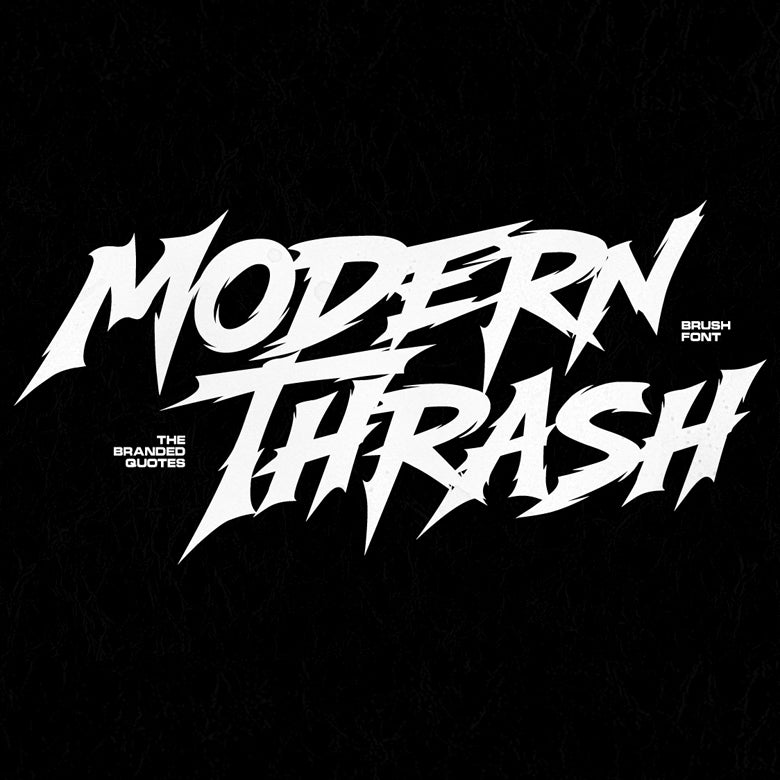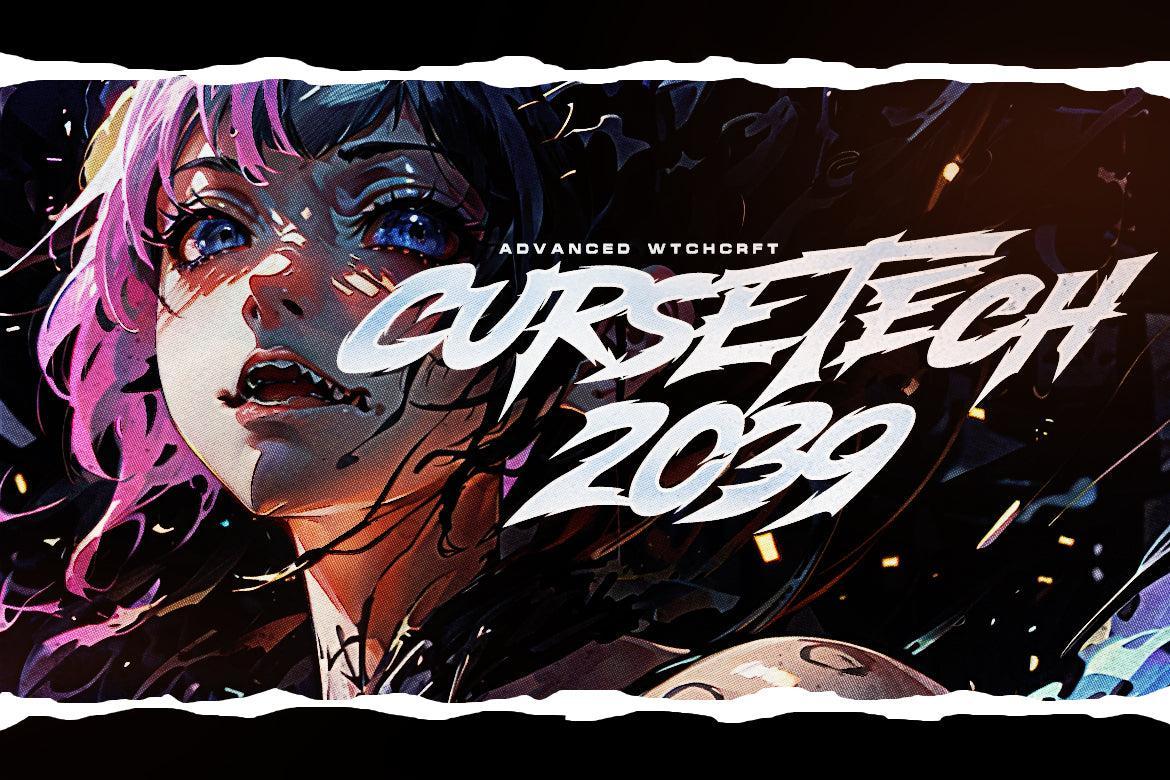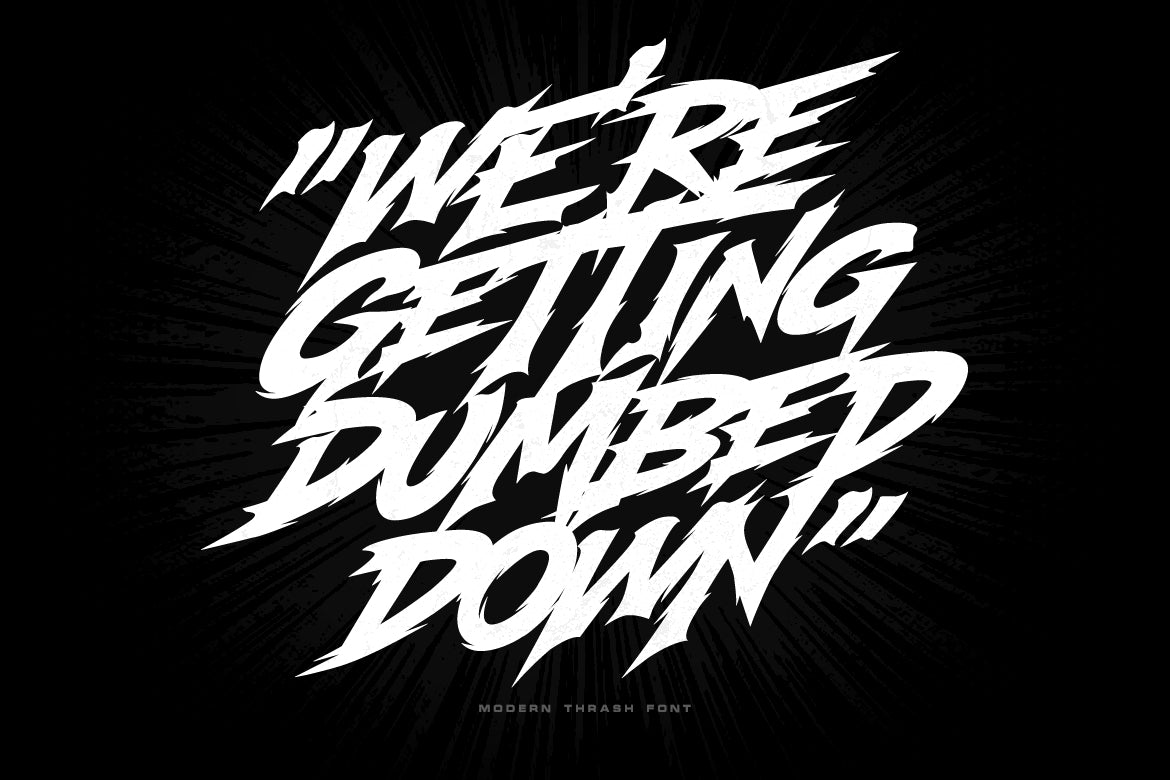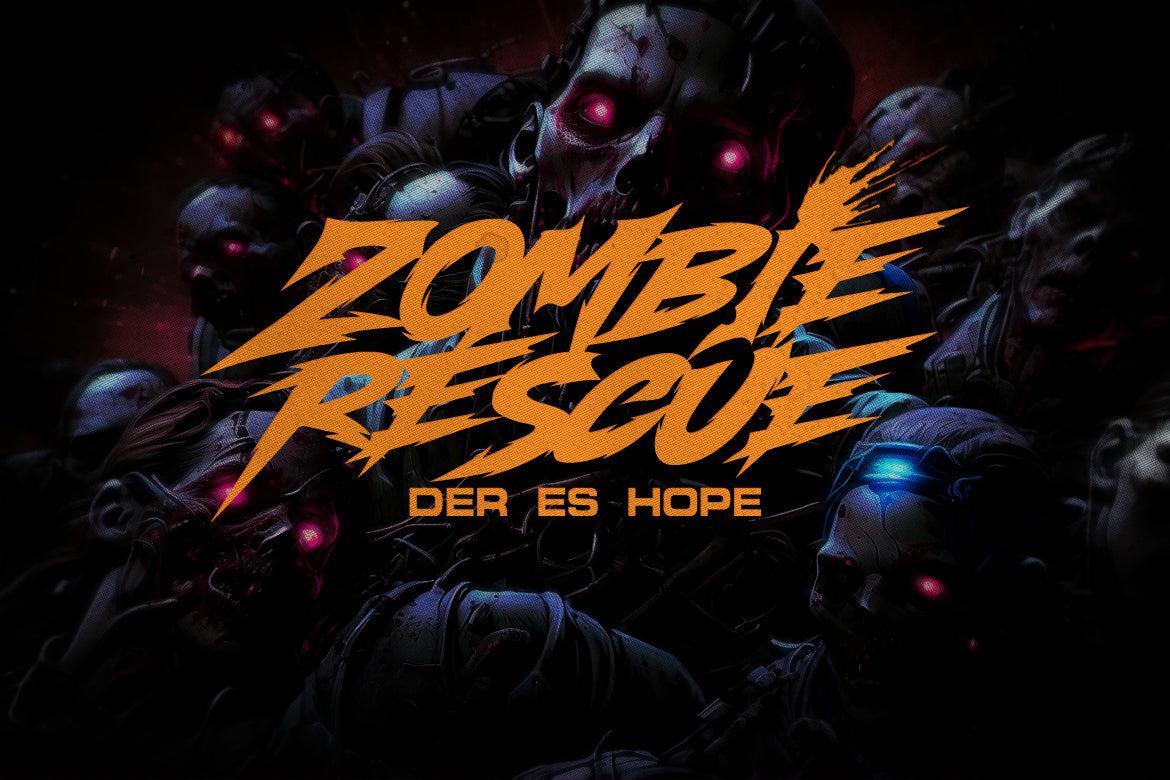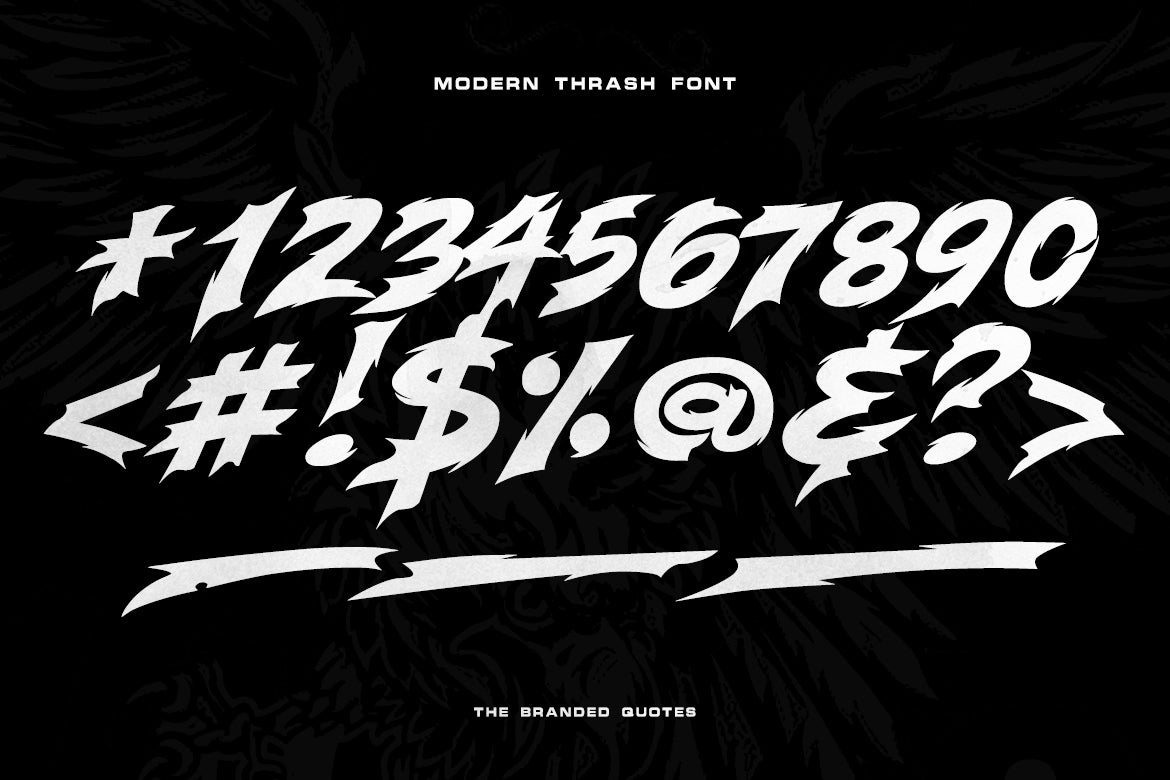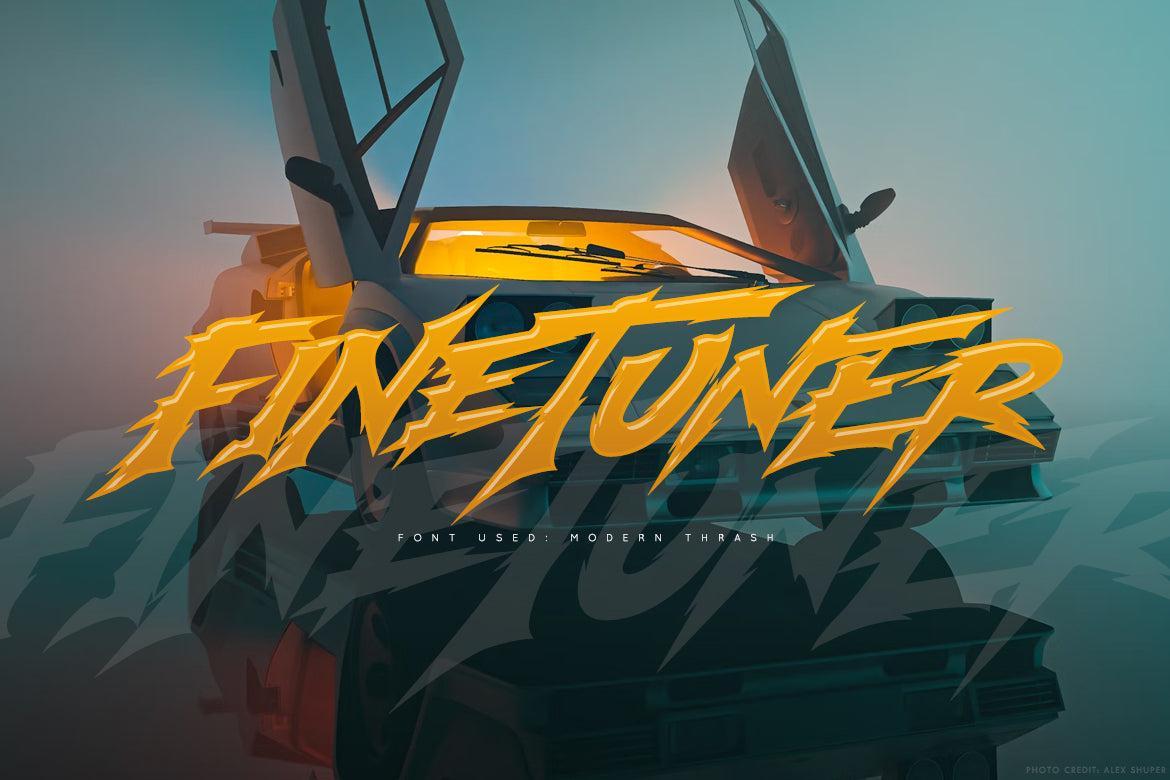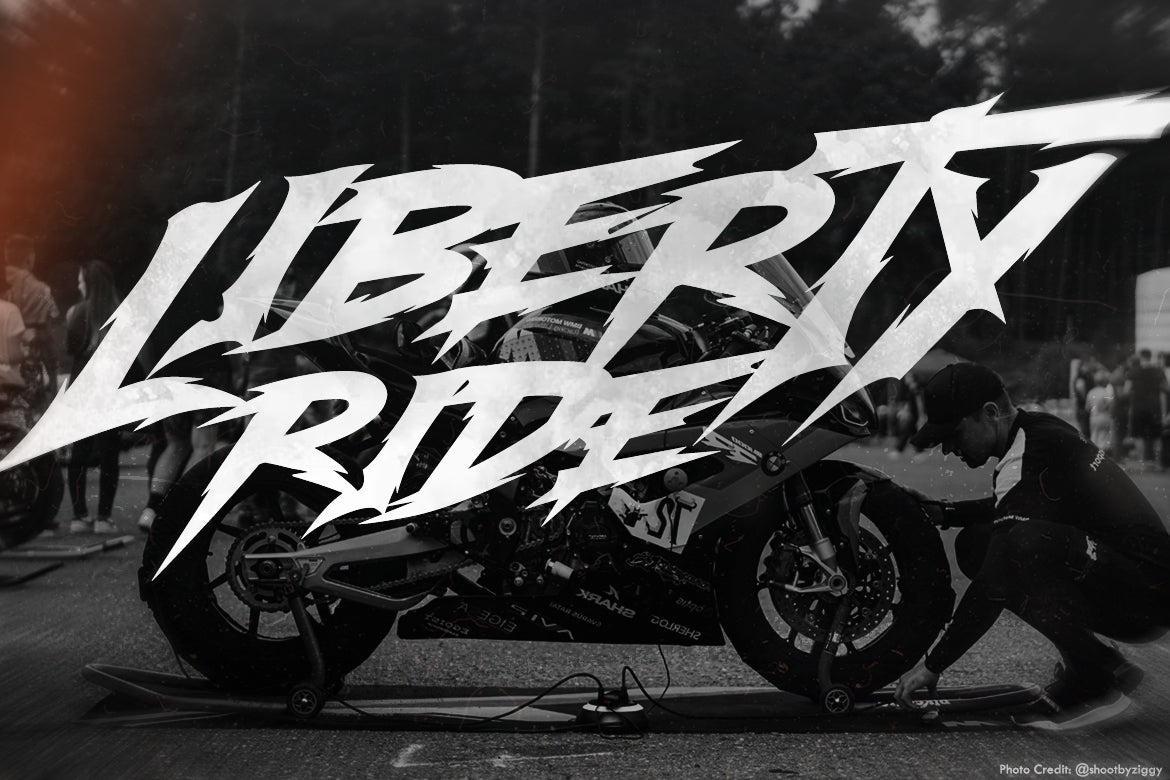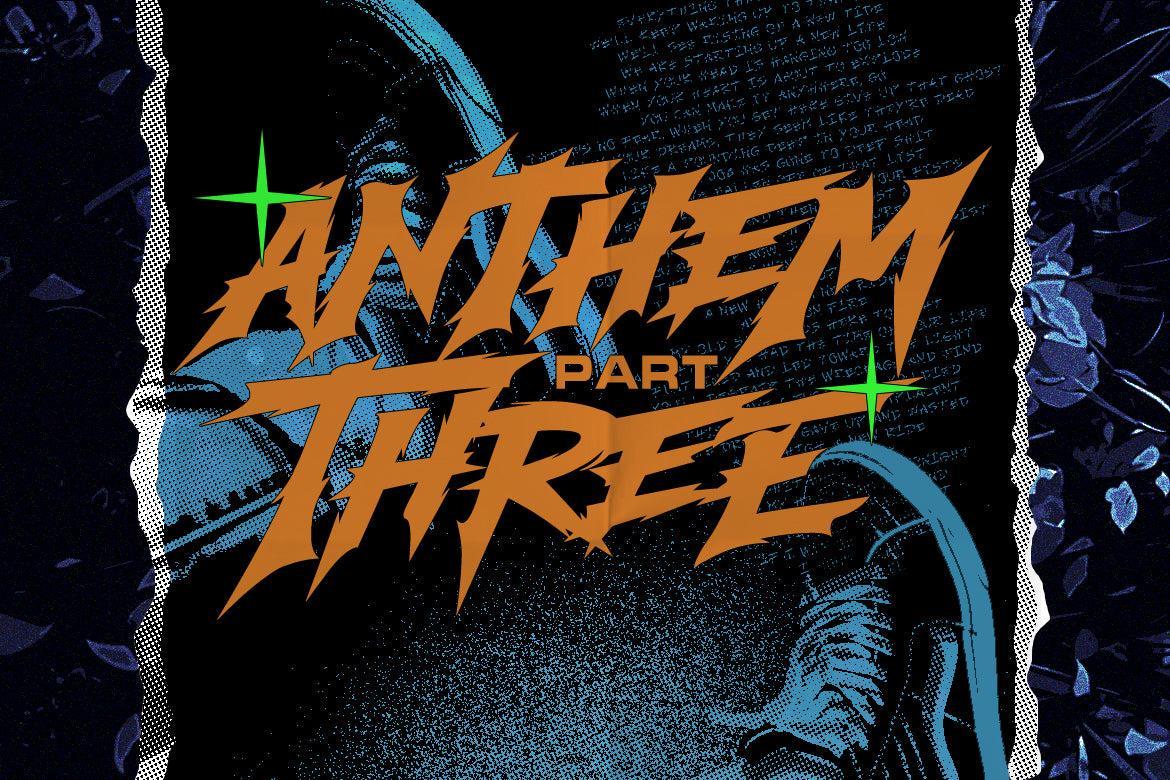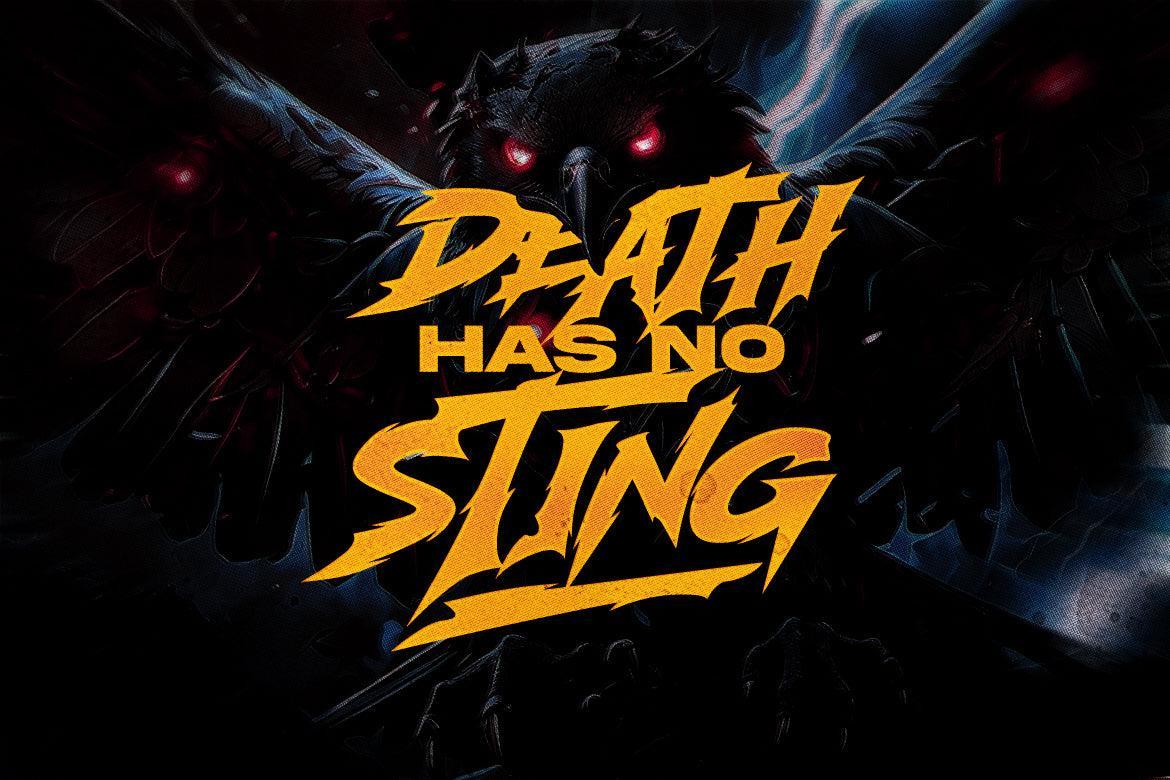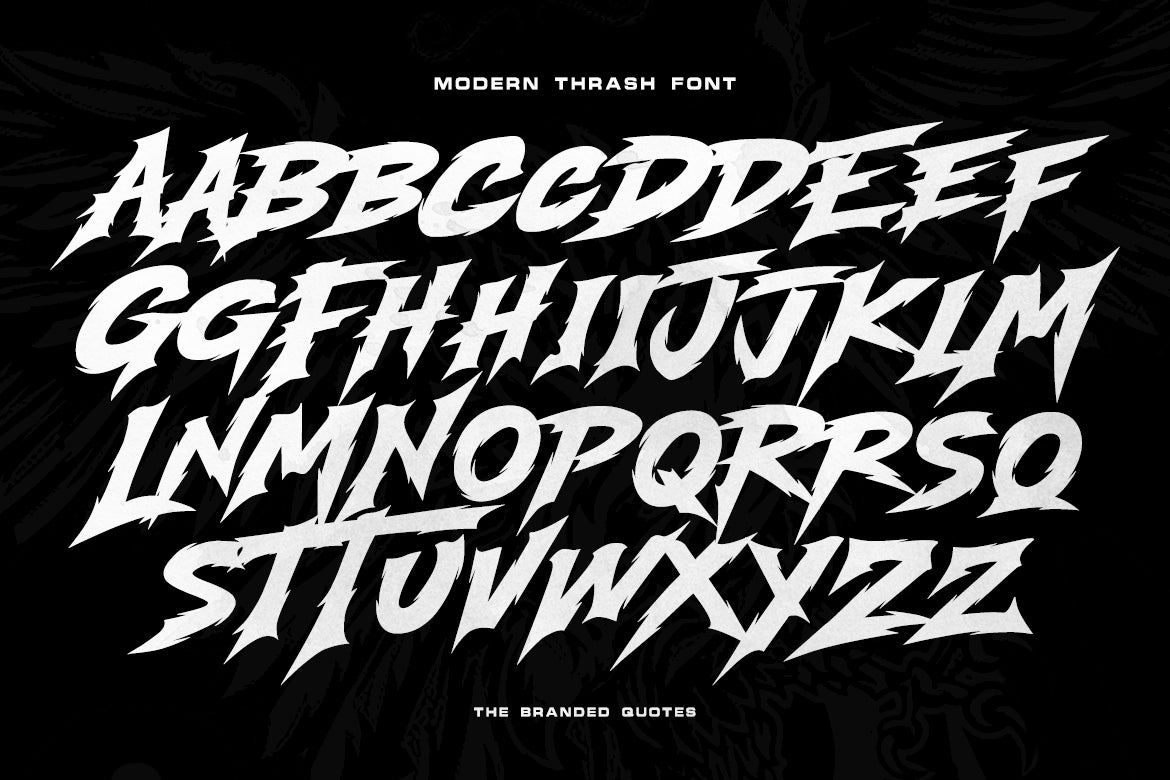
Modern Thrash Font
The thrilling energy of this font will fulfill the void that every graphic illustrators, digital artists, video editors, hardcore and metalheads have been craving. Experience a satisfying feeling as you type using Modern Thrash Font into your projects!
The Modern Thrash Font is a versatile typeface designed for graphic illustrators, digital artists, and enthusiasts of hardcore and metal aesthetics. The download includes both OTF and TTF formats for the standard and slant versions, as well as web fonts and HD previews.